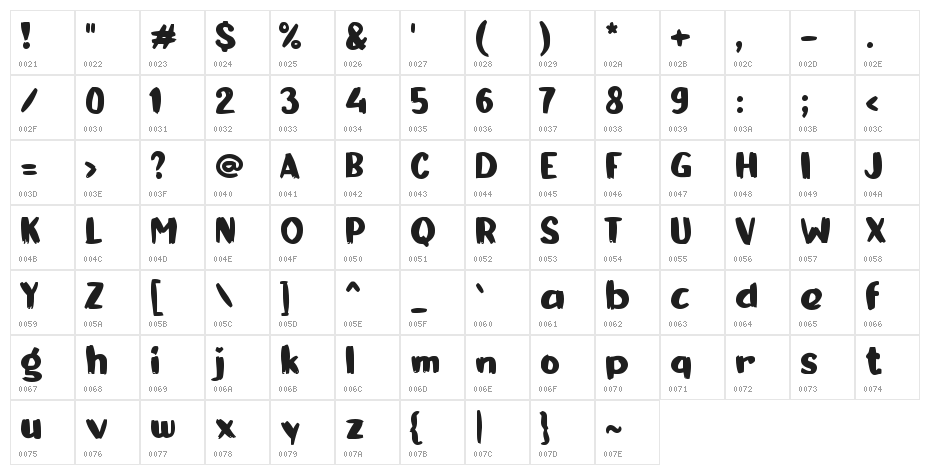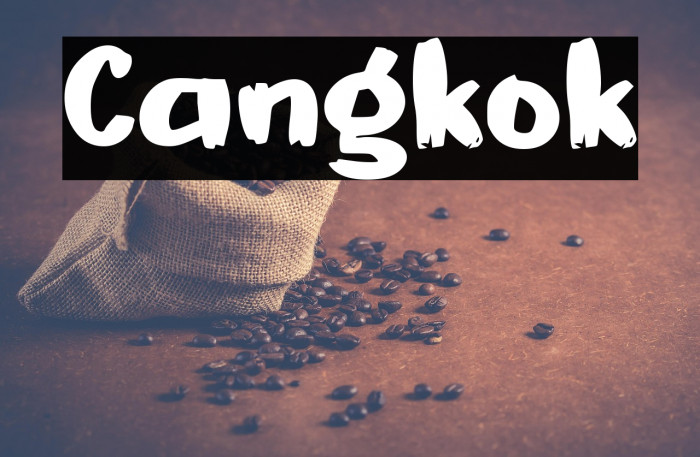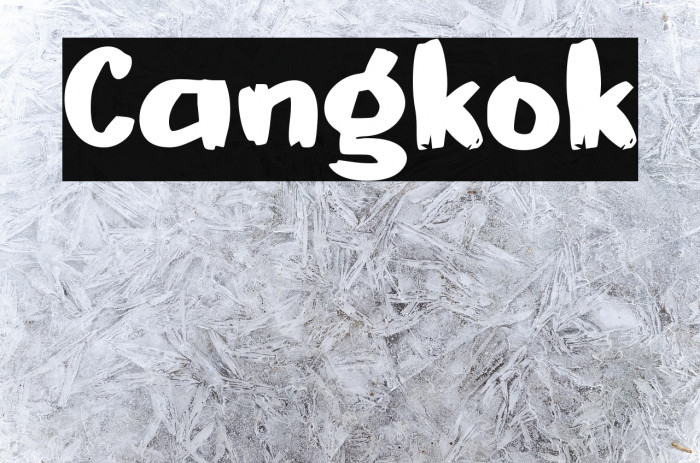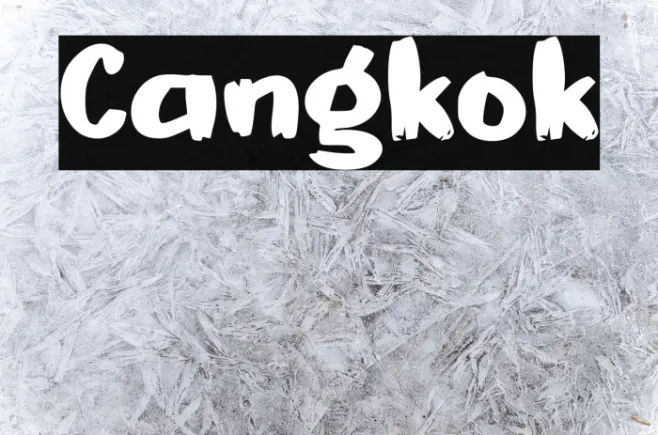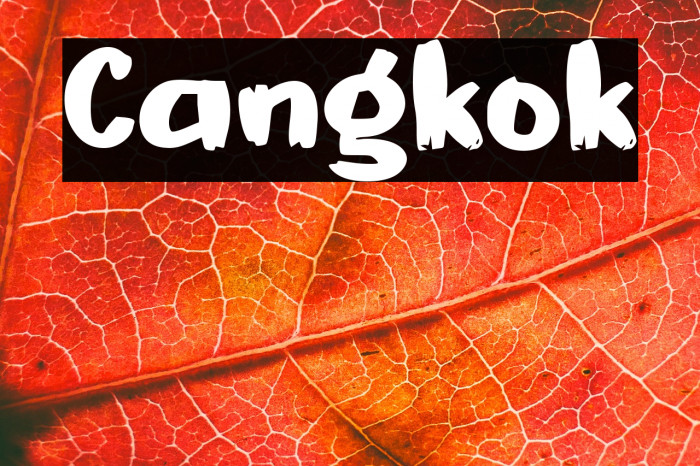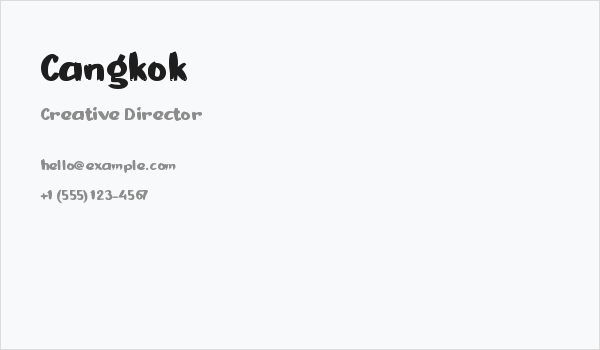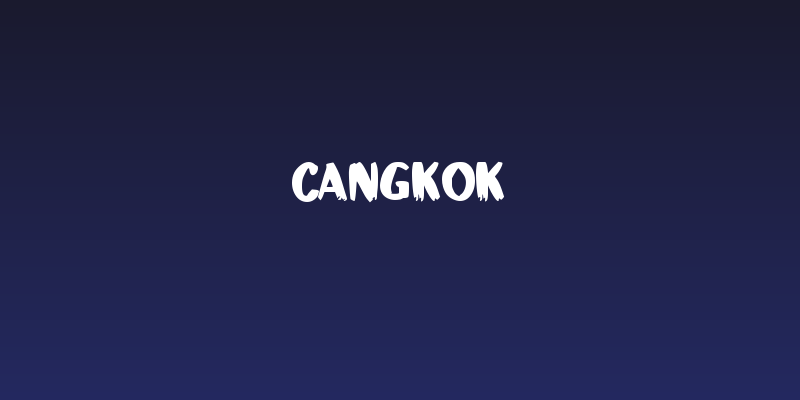
Cangkok Font
Cangkok Description
This font features a bold and expressive style with a hand-painted appearance. The letters are characterized by uneven edges and varying stroke widths, giving it a dynamic and energetic look. The uppercase and lowercase letters maintain a consistent style, with a playful and artistic flair. Numbers and special characters are equally bold and maintain the same hand-drawn aesthetic. This font is perfect for projects that require a creative and informal touch, such as posters, flyers, and artistic branding.
| Proposed Projects | Ideal for artistic branding, posters, flyers, and creative projects needing a bold statement. |